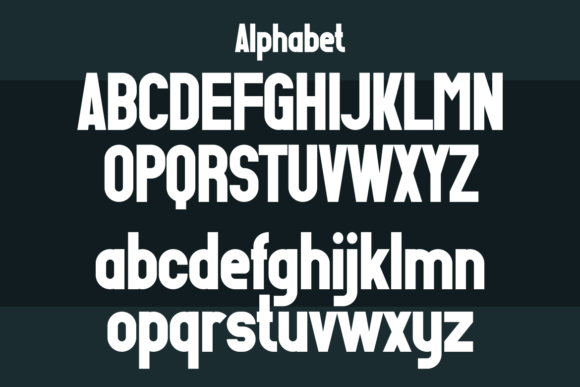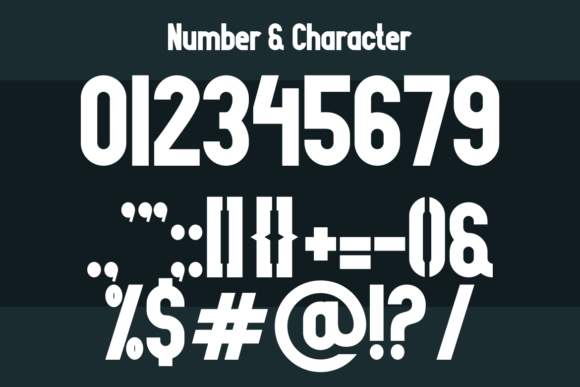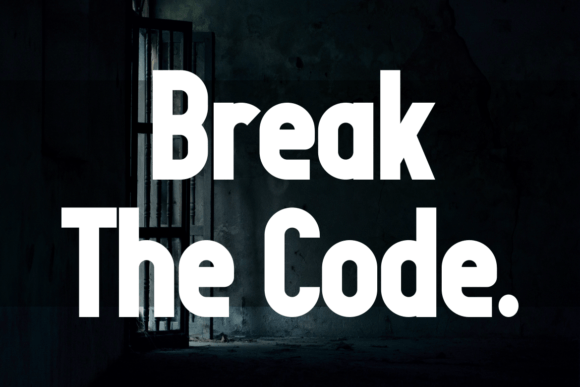
Introduction to Ropinie Font
Ropinie is a super thick typeface with more traditional letter shapes, making it perfect for creating (or recreating) the concise look of film poster production credits.
Key Features of Ropinie Font
Why Choose Ropinie Font?